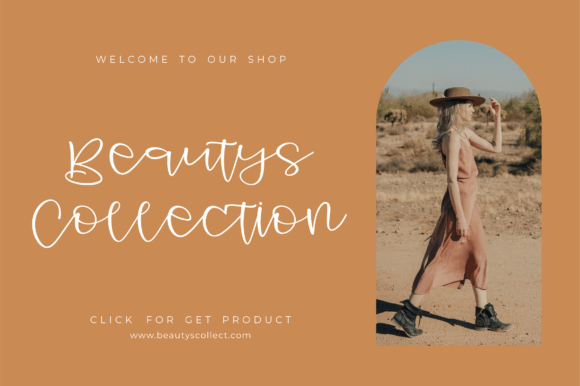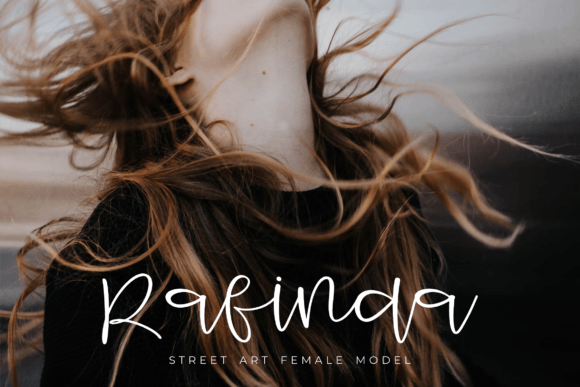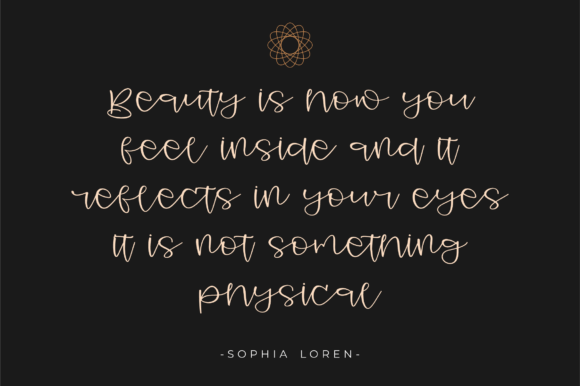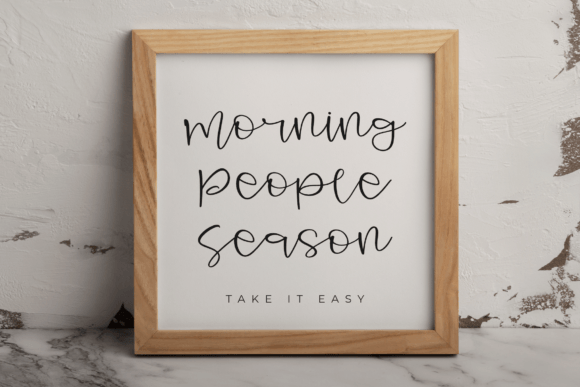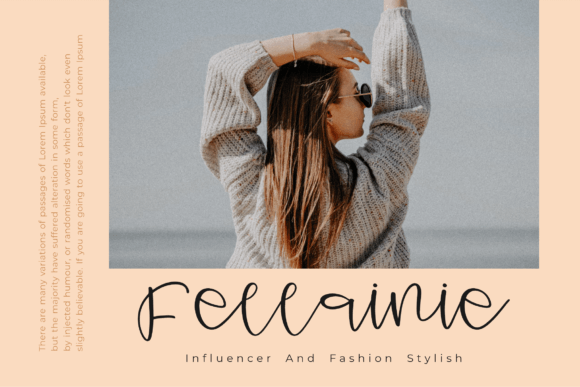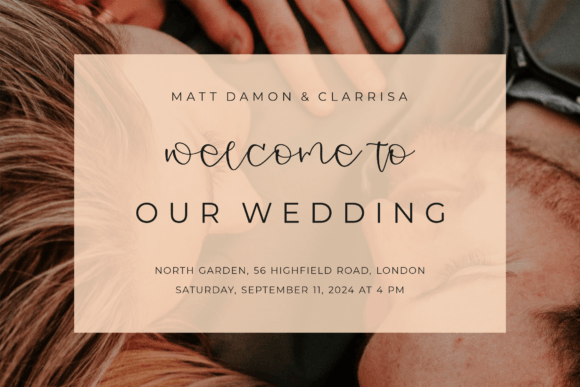
Introduction to Mikallio Harrista Font Font
Fonts play a crucial role in design, and the Mikallio Harrista Font font is a typeface that brings both character and versatility to any project. Whether you’re working on a branding project, a website, or a print design, the Mikallio Harrista Font font offers a unique style that can elevate your work.
Mikallio Harrista is a casual script font.
It’s suitable for any projects such as logos, branding projects, homeware designs, product packaging, mugs, quotes, posters, shopping bags, t-shirts, book covers, name cards, invitation cards, greeting cards, labels, photography, watermarks, special events, and more .
Key Features of Mikallio Harrista Font Font
Why Choose Mikallio Harrista Font Font?
The Mikallio Harrista Font font is more than just a typeface – it’s a design tool that helps you communicate your message with style and clarity. Its unique character set and versatile design make it suitable for a wide range of applications, from elegant invitations to bold headlines.
With its carefully crafted letterforms and balanced proportions, the Mikallio Harrista Font font ensures readability and visual appeal across all mediums.
What makes Mikallio Harrista Font font special?
The Mikallio Harrista Font font stands out with its unique design, exceptional readability, and versatility across various design applications.